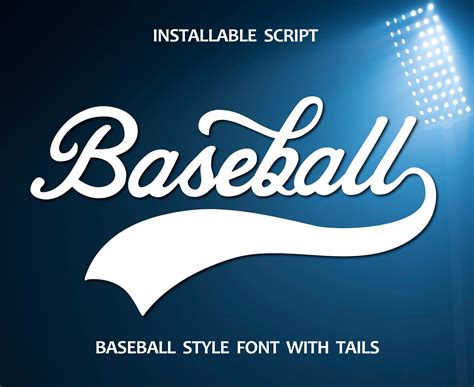
Free Baseball Font With Tail In Canva: A Home Run Guide
Hey everyone! Are you ready to knock it out of the park with your designs? If you’re a baseball enthusiast, a graphic design newbie, or just someone who loves a cool font, you’re in the right place. Today, we’re diving headfirst into the world of free baseball fonts with tails and how you can use them in Canva, the user-friendly design platform. We will explore everything you need to know about these fonts, from where to find them, how to upload them, and how to get creative with them. Ready, set, let’s play ball!
Discovering the Perfect Baseball Font
First things first: what exactly are we talking about when we say “baseball fonts with tails”? Think about the classic logos of your favorite teams: the swooshing “S” of the San Francisco Giants, the iconic “NY” of the Yankees, or even the playful script of the Dodgers. These fonts often have a distinctive look: they’re typically bold, slightly slanted, and most importantly, they feature those awesome “tails” or “swashes” that give them a sense of motion and flair. These tails aren’t just for show; they add a touch of dynamism and visual interest that’s perfect for conveying the energy of the game.
When you’re browsing, keep an eye out for fonts that have the qualities you want: boldness, readability, and those fabulous tails! Also, consider the overall “vibe” of the font. Does it feel classic, modern, or vintage? Consider how this will work with your project. Remember, the best font is the one that best communicates your message and captures the spirit of baseball!
4. Upload the Font: Within your brand kit, you should see an option to upload a font. Click on it. Canva will prompt you to select the font file from your computer. Choose the .TTF or .OTF file you extracted earlier.
5. Use the Font: Once the font is uploaded, it will be available to use in your designs! You can find it in the font menu when you’re editing text in Canva. Now you are ready to create and design baseball-related content.
That’s it! It’s super simple, and the ability to upload custom fonts is a major advantage of using Canva, especially if you want to create a cohesive brand identity that feels professional and unique.
Designing with Your Baseball Font in Canva
Now for the fun part: using your free baseball font with a tail in your Canva designs. Canva is incredibly versatile, so you can apply these fonts to a wide array of projects, from social media graphics to posters and presentations. The key is to be creative and let the font’s personality shine. Here are some ideas to get you started:
• Team Logos and Social Media: If you’re creating graphics for a team, club, or even a fantasy baseball league, your new font is your best friend. Create logos, banners, and profile pictures that instantly scream “baseball!” Use the tail to create a sense of movement. Consider playing with the spacing, kerning, and size. Canva allows you to edit all those features.
Conclusion: Hit a Home Run with Your Designs
There you have it, folks! Now you have all the knowledge and tools you need to find, upload, and use free baseball fonts with tails in Canva. From creating team logos to designing social media content, the possibilities are endless. So, go out there, get creative, and let your designs knock it out of the park! Enjoy and have fun designing! And don’t forget to practice and experiment until you find the perfect style.